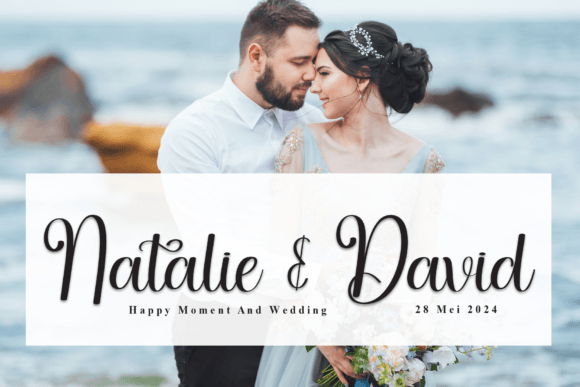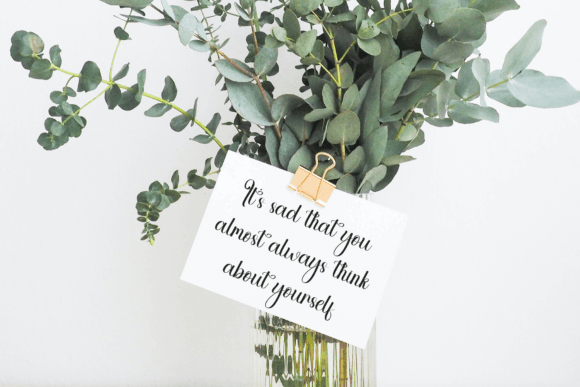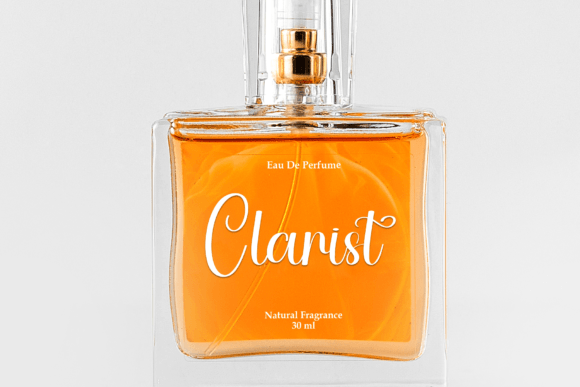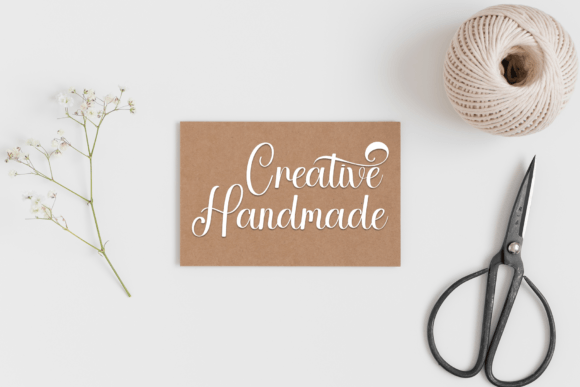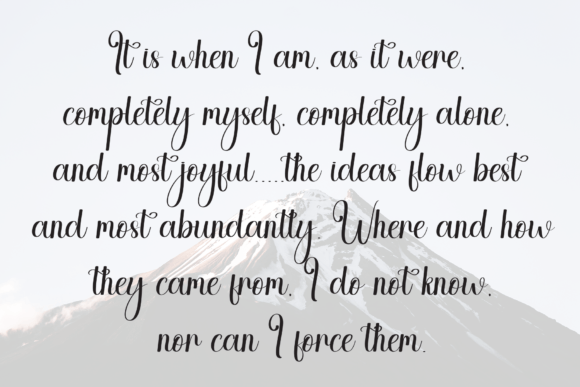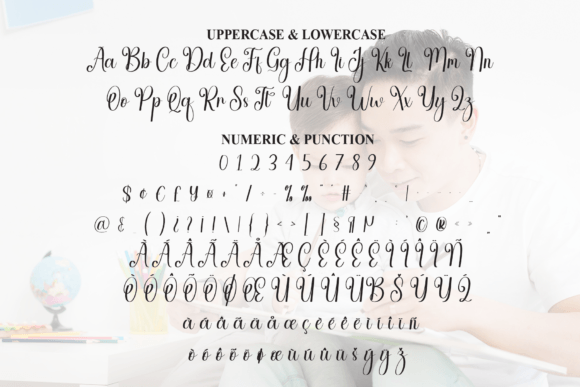
The Charm of Father Font: A Designer’s Delight
I’ll never forget the time I was working on a wedding invitation project, and my client asked me to create something that exuded warmth, joy, and a touch of whimsy. I scoured the internet for the perfect font, but nothing seemed quite right. That was until I stumbled upon Father Font, a beautifully distinctive handwritten font that stole my heart. In this article, I’ll share my experience with Father Font, its unique features, and how to make the most of it in your designs.
A Personal Review: What I Love and What to Watch Out For
- ✨ Elegant, flowing script that’s perfect for wedding invitations, cards, and other designs that require a touch of sophistication.
- ✅ Highly legible, even at smaller font sizes, making it ideal for body text or captions.
- 💕 Delightfully playful and charming, adding a touch of whimsy to any design.
- 🌈 Beautifully crafted with a range of OpenType features, including glyphs and stylistic alternates.
A Few Quirks to Keep in Mind 🤔
- ⚠️ Some letters may appear a bit narrow or tall, which can affect the overall flow of the text.
- ⚠️ Not ideal for very large or bold text, as it may lose its elegance and become too ornate.
The Story Behind Father Font: A Designer’s Inspiration
According to its creator, Father Font was inspired by the classic scripts of the past, with a modern twist. The designer aimed to create a font that was both elegant and playful, perfect for designs that require a touch of sophistication and whimsy. With its beautiful, flowing script and delightful charm, Father Font is sure to become a favorite among designers and crafters.
| What type of designs is Father Font best suited for? | Father Font is ideal for designs that require a touch of elegance, sophistication, and whimsy, such as wedding invitations, cards, and other creative projects. |
| Is Father Font suitable for body text? | Yes, Father Font is highly legible, even at smaller font sizes, making it suitable for body text or captions. |